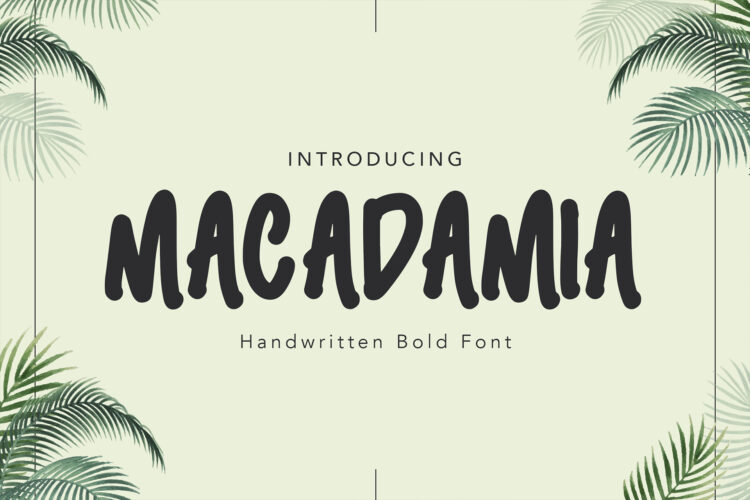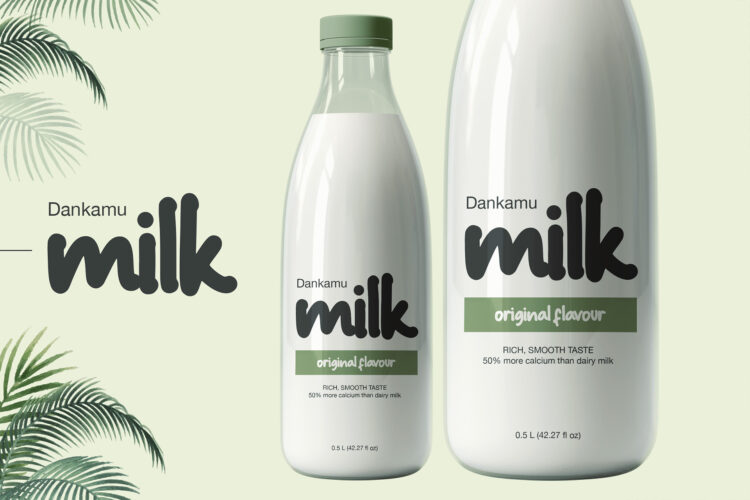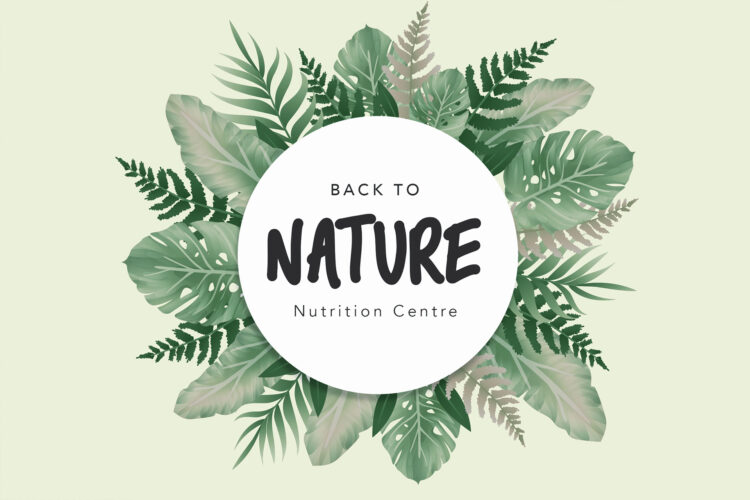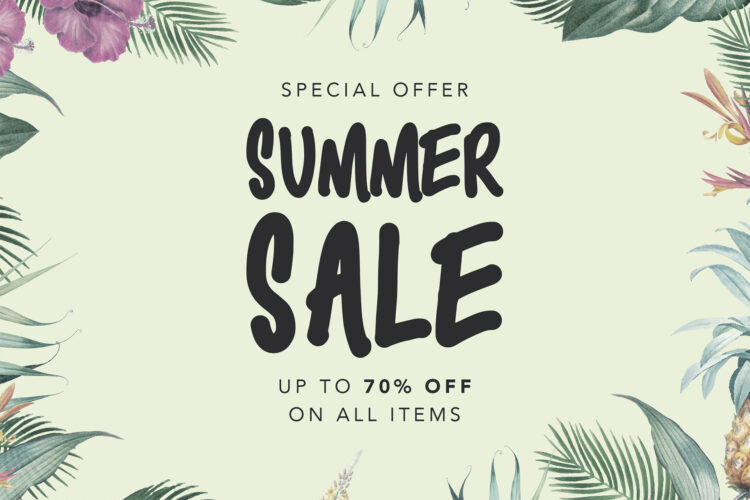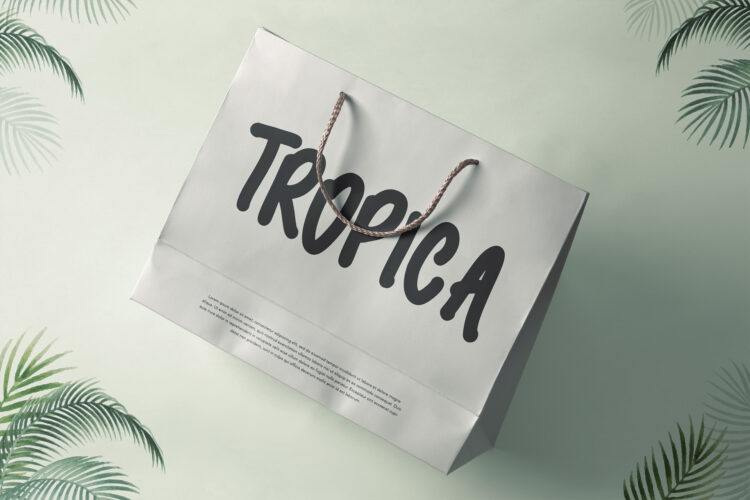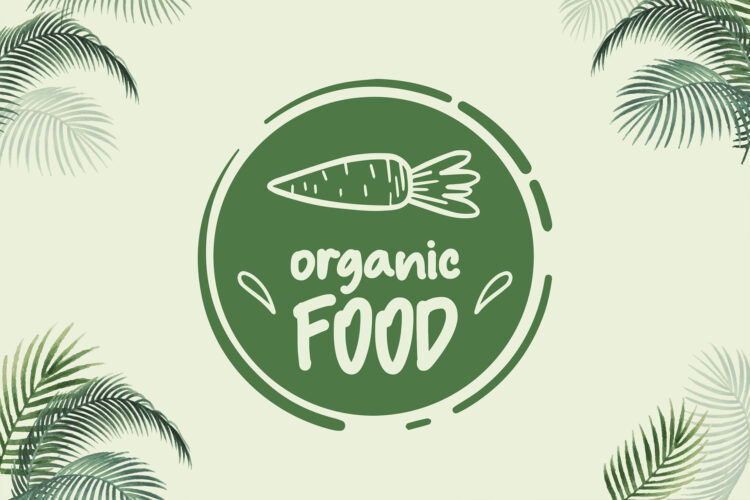
The tropical atmosphere always brings cheerful and playful nuance to its surrounding, thus, Macadamia gives off the atmosphere to your textual creative work. This playful handwritten font is a perfect fit for the modern botanical and nature theme, product packaging, product branding, tote bag, coffee, milk, organic and healthy food – or a stylish text overlay to any background image.
Its soft, bold and playful character makes Macadamia Playful Handwritten Font good for fun and semi-formal text or creative display. You may also apply it for children-themed work such as books, clothes, toys and many more.
Macadamia Features:
- Font type with fun, playful and bold characters
- Uppercase & Lowercase letters
- Numbering and Punctuation